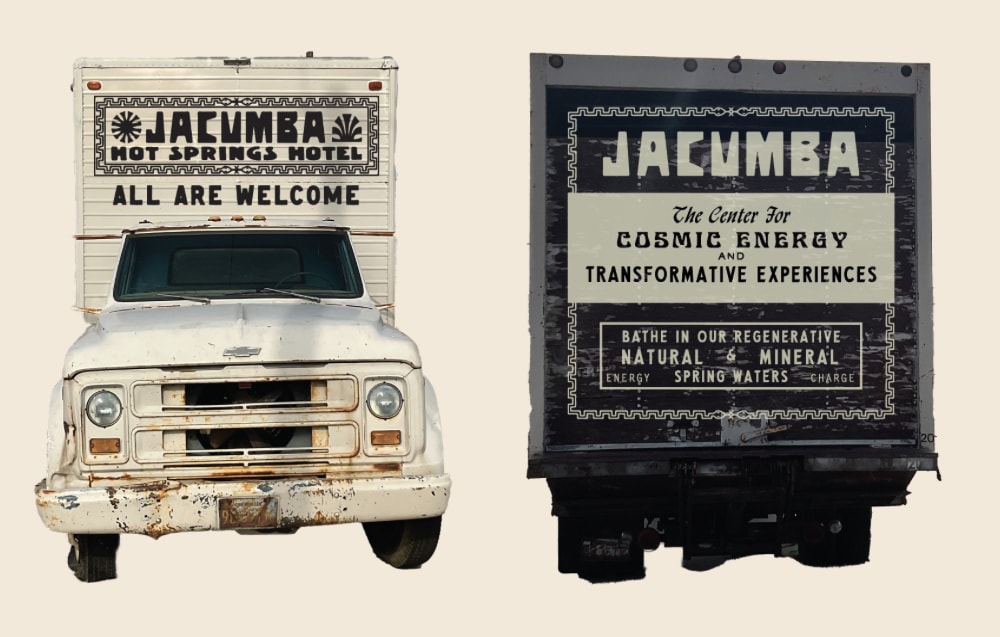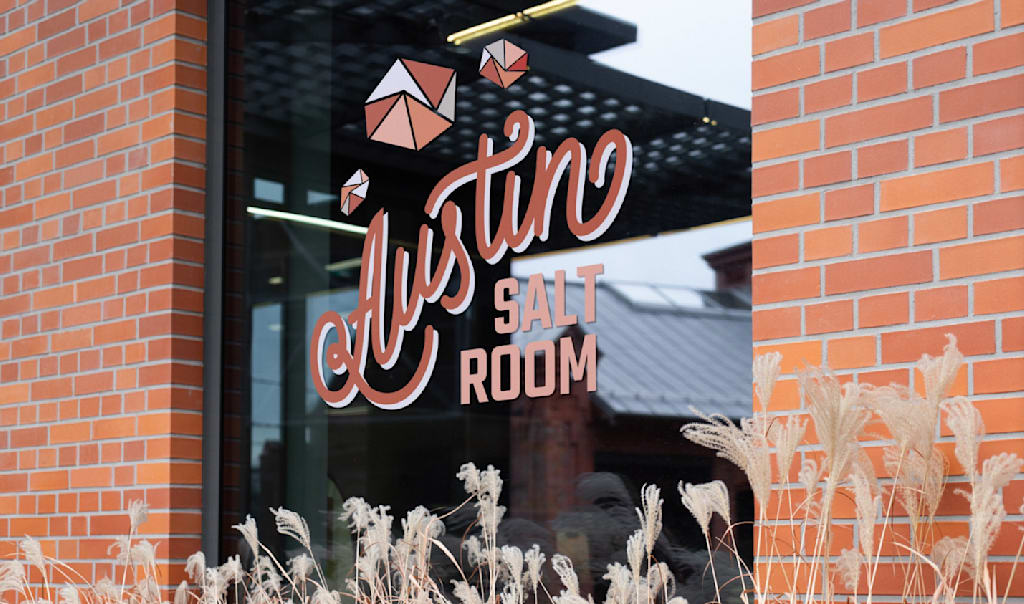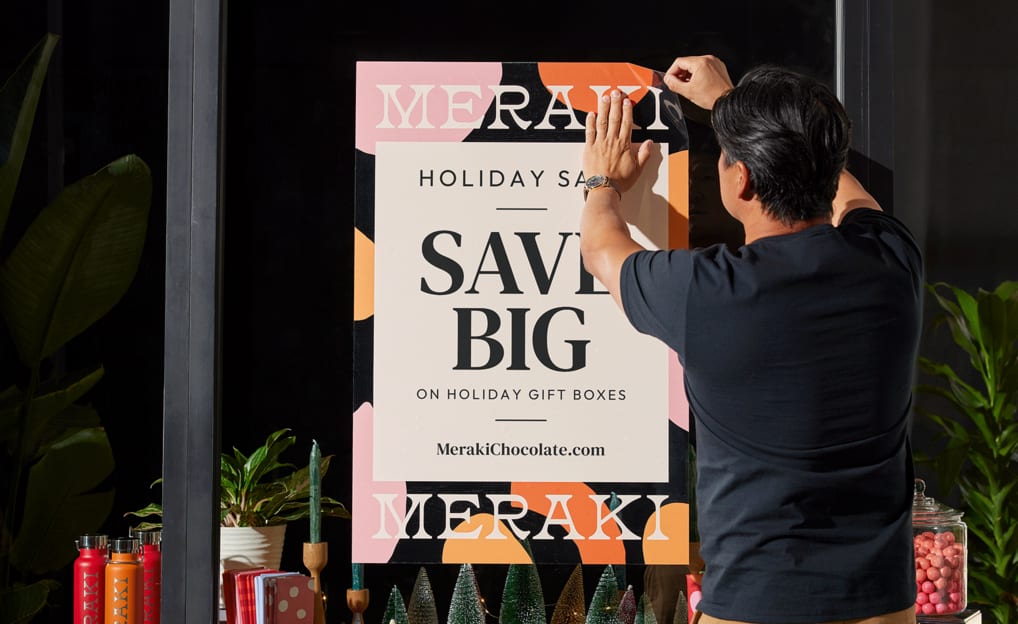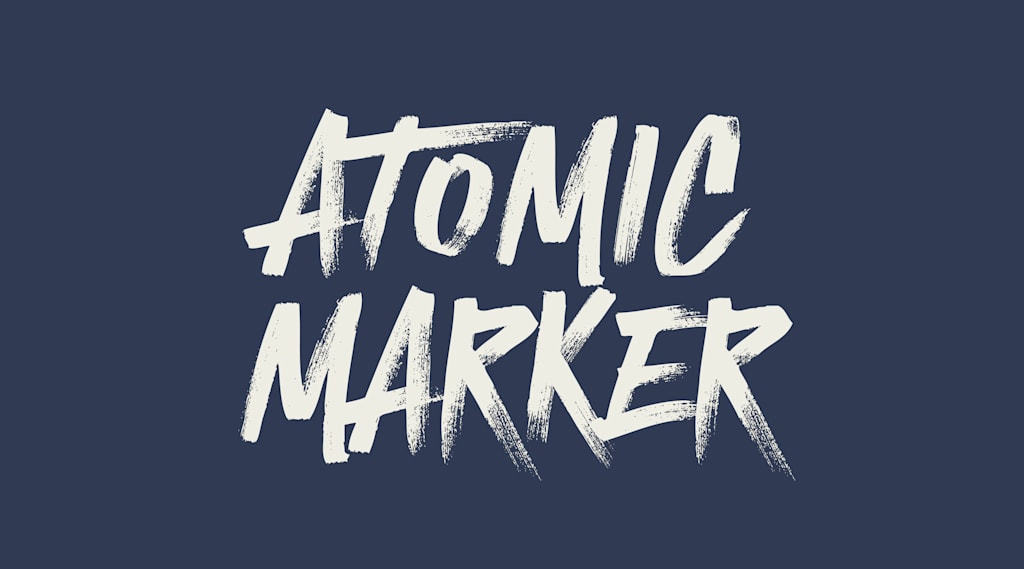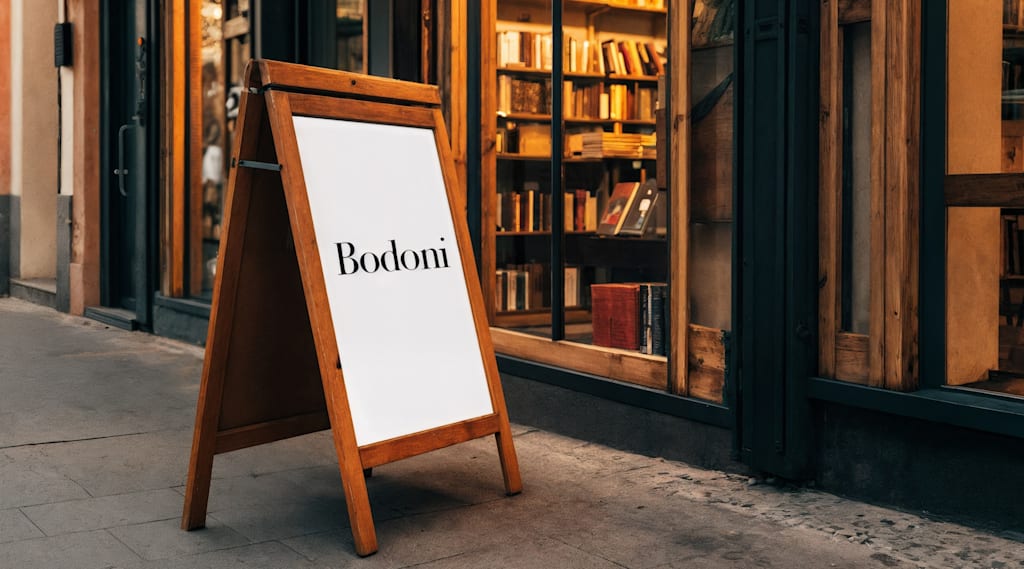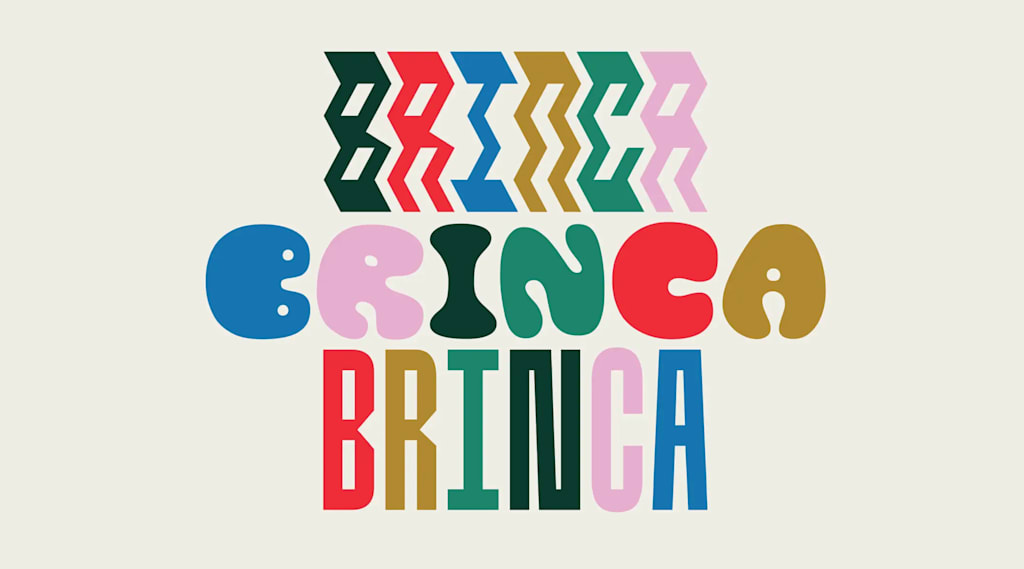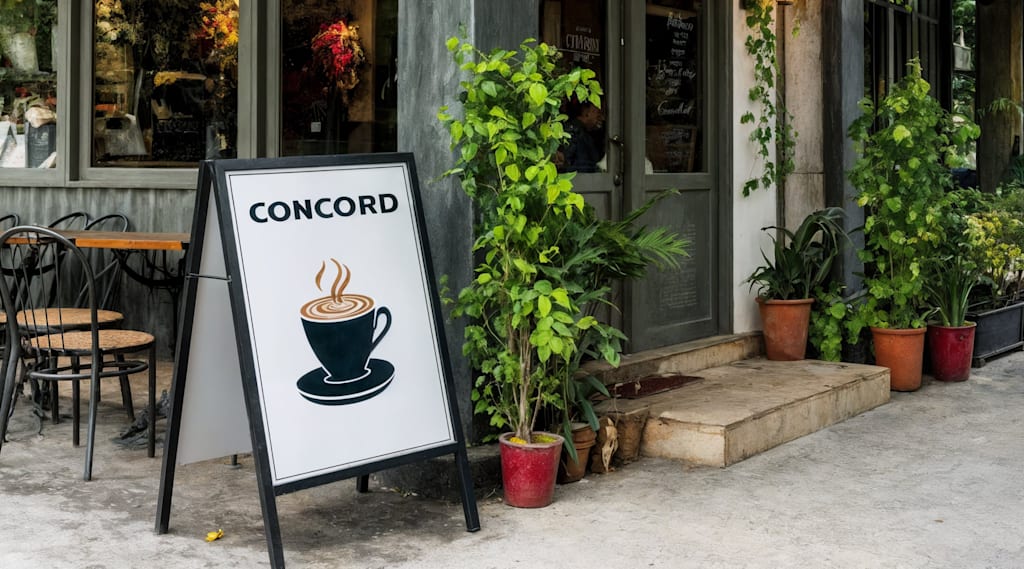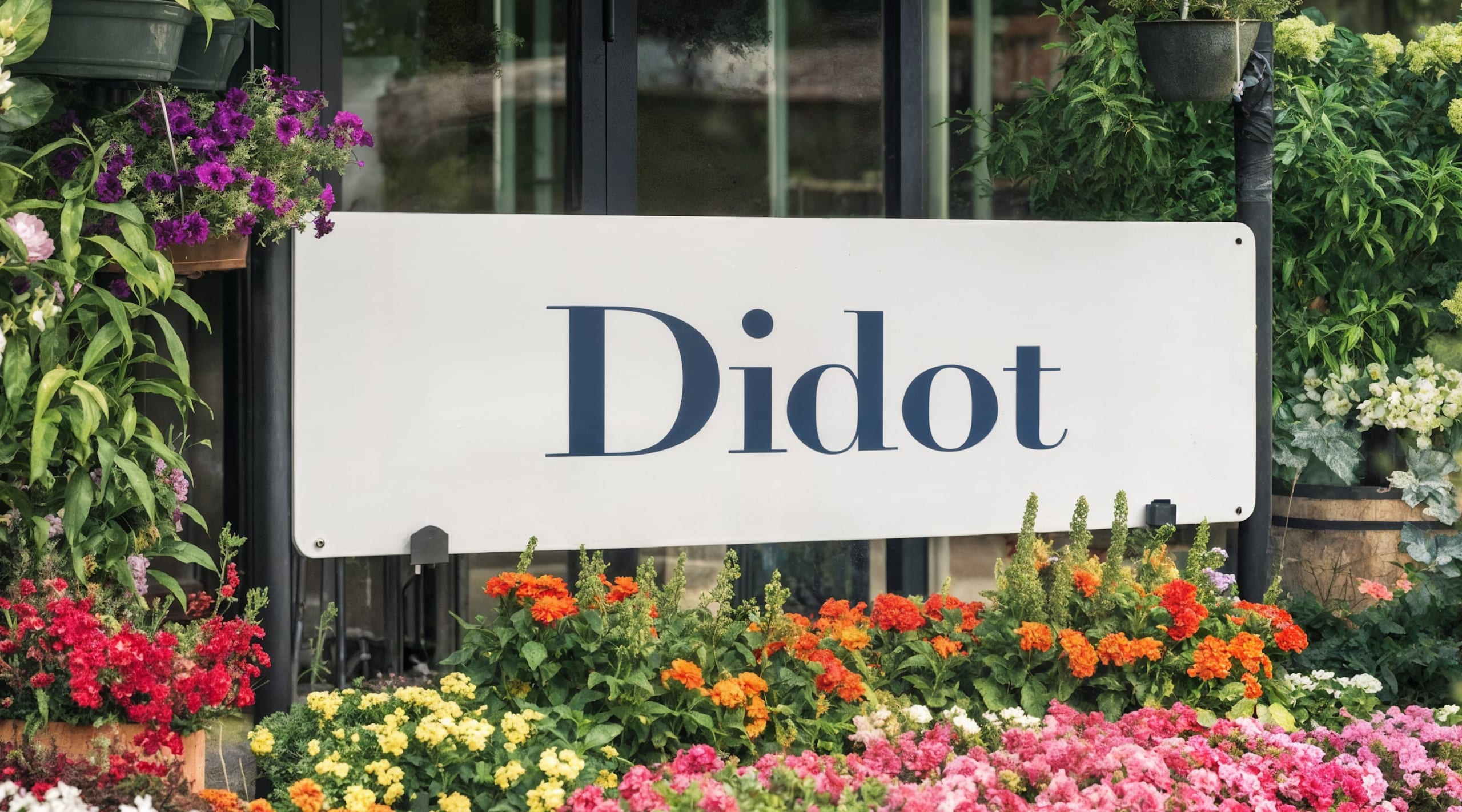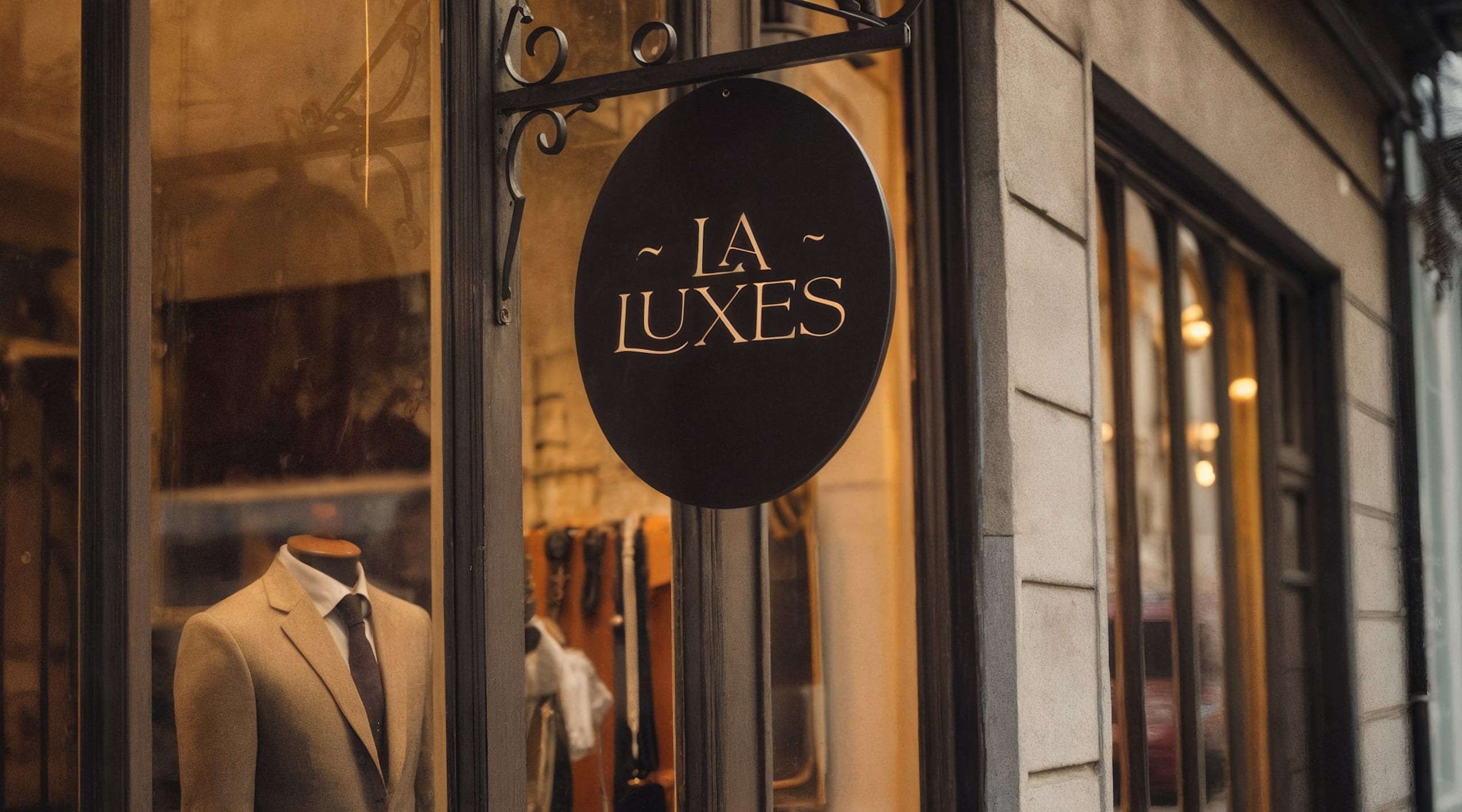
Have you ever wondered what the best fonts for signs are and why they’re effective? A sign that combines a great message with an eye-catching font can attract potential customers, increase brand awareness and foot traffic, or make your booth the talk of the trade show.
Because signs communicate important information, they need to be clear and have visual appeal. The perfect font is the easiest way to achieve this, but choosing the right font for signs isn’t always easy. There are thousands of options—stylish fonts, cool fonts, bold fonts—each with subtle differences and appropriate uses. In this guide, we’ll walk you through good fonts for signs, why they’re effective and how to choose the best font for signage.
- Choose bold fonts with clean lines that are clear and easy to read from a distance. Passersby should be able to understand your sign’s message at a glance.
- Avoid overly decorative or intricate typefaces that make your sign harder to read. Large, bold fonts improve visibility, helping your sign stand out and improving readability.
- For a clean and professional look, use one or two fonts that complement each other. Too many different typefaces can confuse the reader.
- Use fonts consistently across all marketing materials to strengthen brand recognition.
- Check your sign from various distances and angles for readability. Gather feedback to guarantee that your signage communicates its message effectively.
What makes the best fonts for signs?
Ideal fonts for signs are legible, eye-catching, well-balanced and full of personality.
First, understand the different types of fonts and learn basic typographic terminology.
Bold, modern fonts work well for vinyl banners
Prioritise readability
Readability is the most important thing to consider when choosing the ideal fonts for signs. But it’s so basic that it’s easy to overlook. The average passerby will likely be focused on other things, so the information printed on your sign should be effortless to scan.
Generally, simple letter shapes, like sans-serif fonts, are easiest to read quickly. Narrow or thin fonts are harder to read at a distance, and decorative elements, like serifs or elaborate cursive, can also affect legibility. But these may be acceptable trade-offs to communicate your brand image and identity, as long as your sign’s message remains clear.
Use eye-catching fonts
The purpose of signs is to grab attention, so a good sign font should draw the viewer’s eye through placement and scale and using the design principles of contrast and white space. Use display fonts specifically designed for headline text as these tend to be bolder, heavier fonts with room for special effects like drop shadows, outlines and textures.
Many fonts include a ‘Display’ variation within their font family, making even common fonts impactful for business signs.
Let your brand shine
Every font has a personality, and you can explore which suit your brand best using font psychology:
- Serif fonts are associated with tradition and printed text.
- Sans-serif fonts for a sleek and modern look, commonly used for digital text.
- Script fonts are more elegant and formal.
- Decorative fonts are novel and playful, reminiscent of hand-lettering.
Beyond this, each specific typeface style will subtly stir different emotions and associations in the reader.
A-frame sign for a restaurant
Looking for the best fonts for outdoor signs? Check out these outdoor signage ideas.
With all this in mind, choose a font with associations that match your brand personality. This means you should give some thought to your official brand fonts if you haven’t already. The font style should match the tone of your sign’s message, as well as your branding. For example, if you’re trying to excite the reader about an upcoming sale, use a bold, large, sans serif font.
Strive for harmony and balance
Signs often include a brand name or headline, a tagline and supporting information like location, date or prices. As a result, you may need a few different fonts, though it’s best to stick to around three.
Poster promoting a holiday sale with three fonts
To make it clear how important each piece of information is through visual hierarchy, vary the scale, placement, colour, direction and overall shape of the lettering.
Pairing good signage fonts generally comes down to great contrast. For example, combine an angular sans serif headline with a fluid script subheadline to create a sense of interplay between the fonts. Or consider using the same font in different sizes and weights, creating contrast and harmony.
The best fonts for signs
Best professional fonts for signs
Business and advertising signs convey professionalism through straightforward fonts. A good professional sign font should also include subtle touches of personality to help connect with the target audience.
How far away should my sign be readable?
As a rule of thumb, a sign’s text should be readable from at least 10 feet per inch of letter height. Choosing bold, simple fonts will help your message remain clear, even at a distance.
What’s the best number of fonts to use on one sign?
Stick to two fonts: one for the headline and one for the body text. This keeps your sign’s design clean and doesn’t overwhelm the reader. If necessary, use a third font, but any more than this could cause visual clutter.